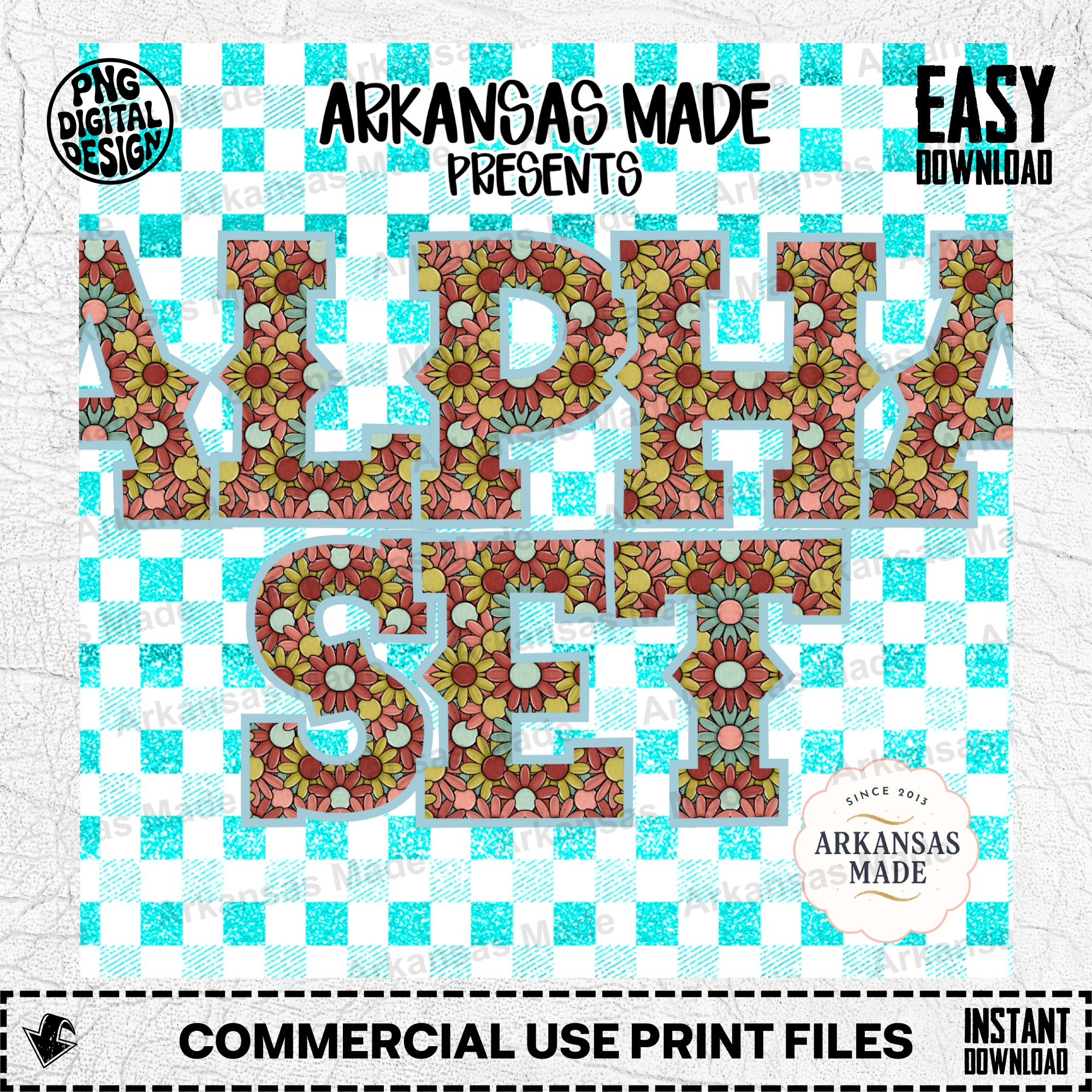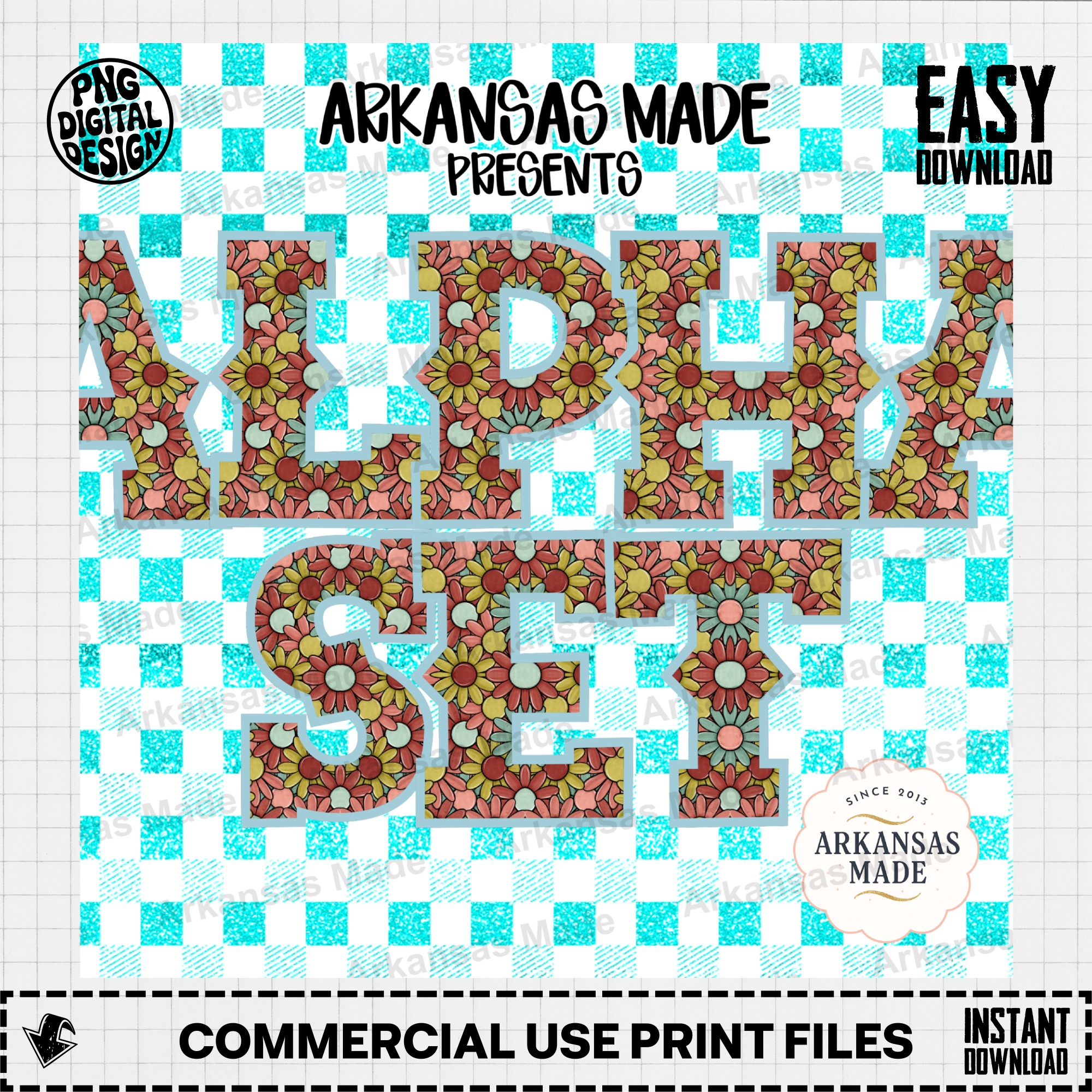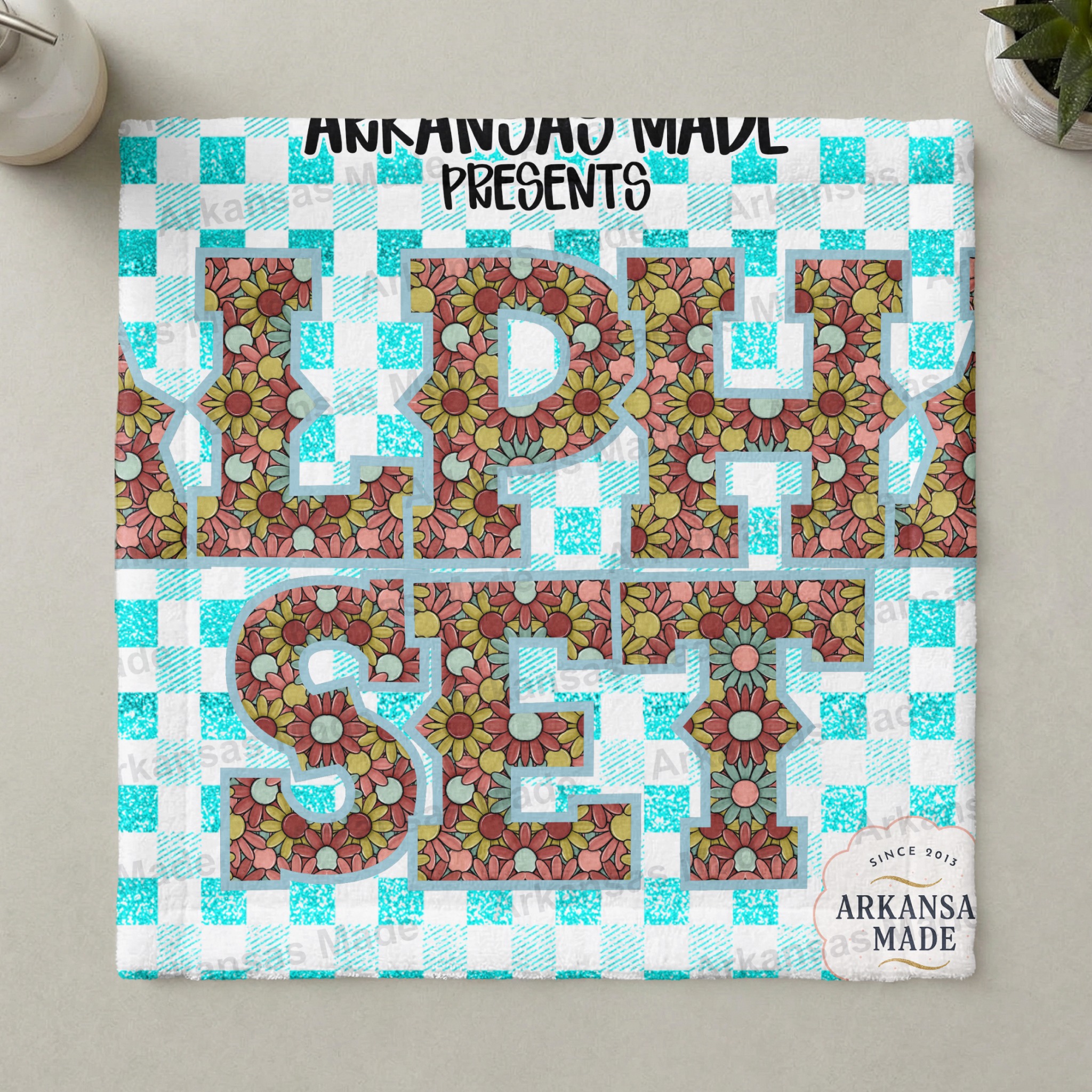
Unlock your creativity with this Groovy Floral Alpha Set Digital Download, featuring retro daisy alphabet letters perfect for vibrant sublimation projects! Embrace a nostalgic 70s boho vibe with this unique font bundle, ideal for crafters, graphic designers, and DIY enthusiasts. Create personalized gifts, eye-catching apparel, or unique party decor with ease for any occasion.